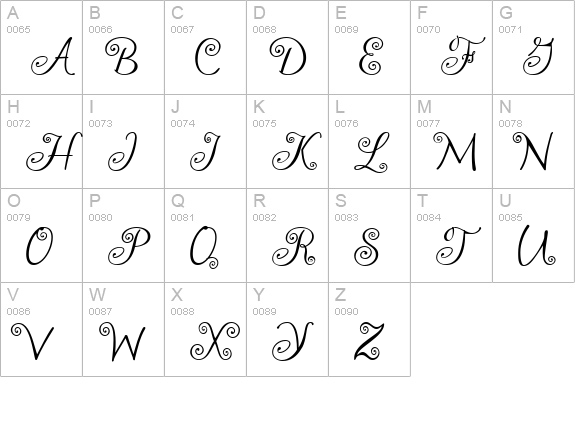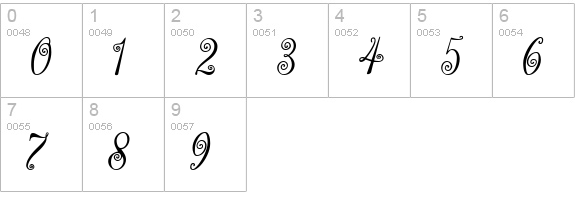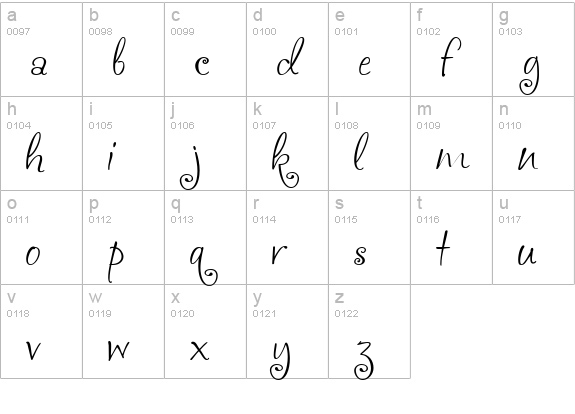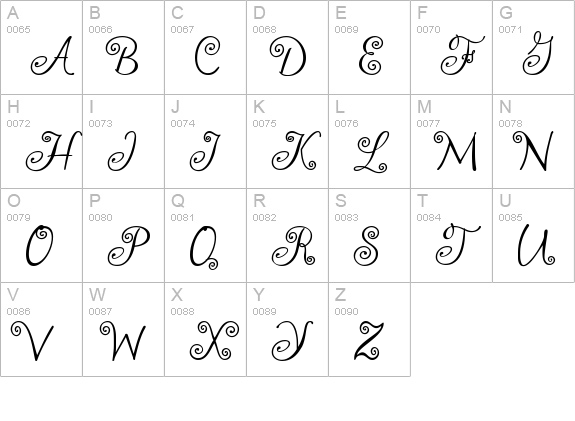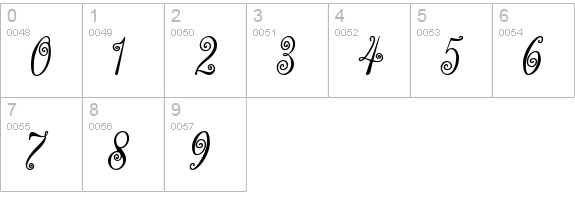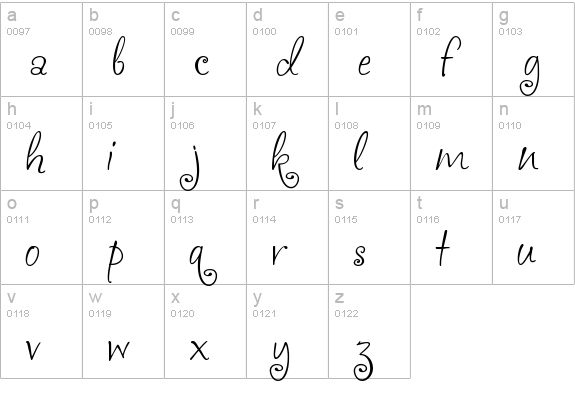
akaFrivolity Font Details
The akaFrivolity font is a whimsical and playful typeface that exudes a sense of lightheartedness and fun. With its charming curls and elegant flourishes, this font is perfect for adding a touch of joy to any design project. Whether you're creating invitations, greeting cards, or branding materials, akaFrivolity is sure to make a statement. Best of all, akaFrivolity is available for free download at FontsMarket.com. So go ahead and unleash your creativity with this delightful font that is bound to bring a smile to your face.